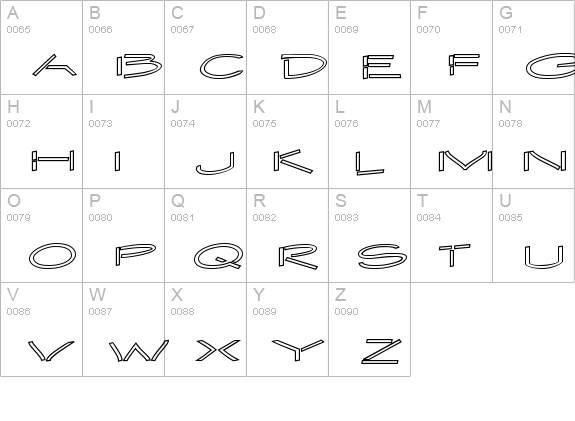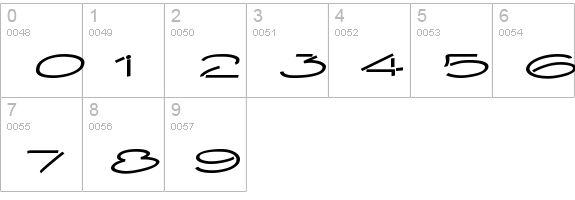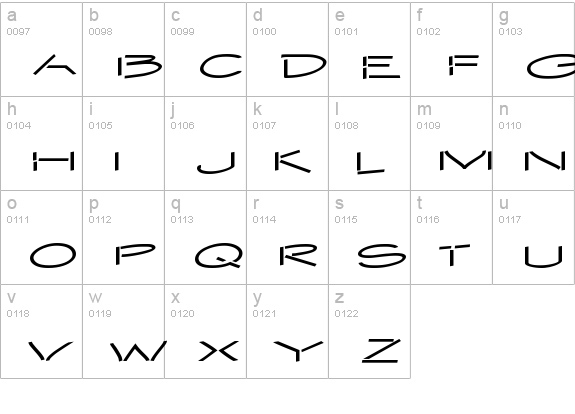
Embargo Font Details
Embargo font is a modern and stylish typeface that exudes sophistication and elegance. Its sleek lines and sharp edges make it perfect for a wide range of design projects, from branding to editorial design. This versatile font offers a timeless appeal that will elevate any project it is used in. What sets Embargo font apart is not only its aesthetic appeal but also the fact that it is available for free download at FontsMarket.com. This means that designers and creatives can access this high-quality font without any cost, making it an invaluable resource for projects big and small. With its clean and contemporary design, Embargo font is sure to make a statement in any design application. Whether you are creating a logo, website, or print materials, this font will add a touch of sophistication and professionalism. Download Embargo font today and elevate your designs with this stunning typeface.